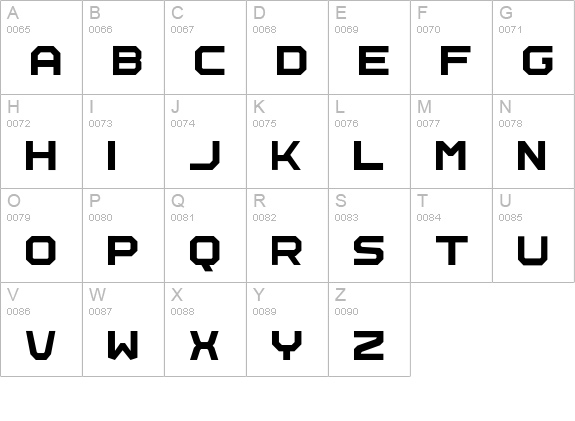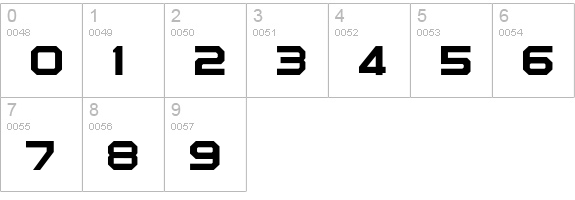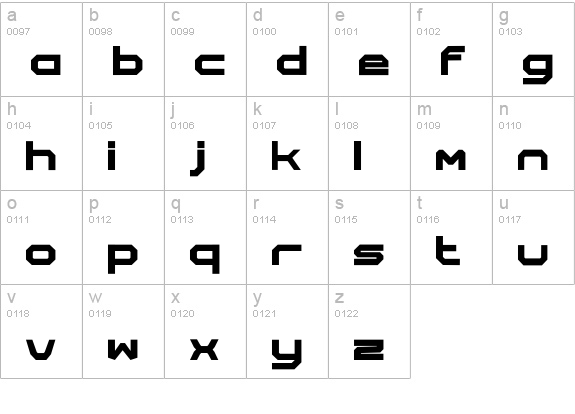
Rally-Regular Font Details
Rally-Regular is the standard, neutral variant in the Rally typeface family \xE2\x80\x94 well suited to general body text, paragraphs, and standard typographic work.
Rally-Regular font is a modern and stylish typeface that is perfect for adding a touch of elegance and sophistication to any design project. Its clean lines and sharp edges make it ideal for both digital and print applications, from logos and branding materials to headlines and body text. With its balanced letterforms and excellent legibility, Rally-Regular font is suitable for a wide range of design purposes, whether it's for a professional website, a magazine layout, or even a personal invitation. Its versatility allows it to adapt seamlessly to various design styles, making it a reliable choice for designers of all levels. One of the best features of Rally-Regular font is that it is free to download at FontsMarket.com. This means that you can easily access this high-quality font without any cost, making it an excellent option for designers on a budget or those looking to experiment with different typefaces. By offering Rally-Regular font for free, FontsMarket.com aims to support the creative community and make premium fonts accessible to all. So why not give Rally-Regular font a try? Download it today from FontsMarket.com and elevate your design projects with its sleek and contemporary aesthetic. Whether you need to create a professional presentation or add a touch of sophistication to a personal project, Rally-Regular font is the perfect choice to make your design stand out.